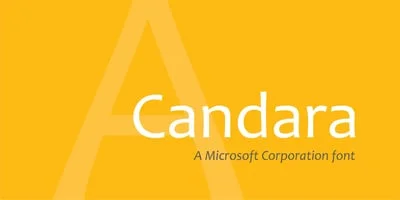
Candara Font
Candara Font is perfect for corporate presentations, business documentation, professional reports, educational materials, user interface design, modern signage systems, clean branding projects, and contemporary digital applications. This versatile humanist sans-serif typeface excels in projects requiring exceptional clarity and professional warmth where accessibility meets sophisticated design standards.
What makes Candara Font exciting is its perfect balance of humanist warmth with geometric precision, creating a typeface that feels both approachable and professionally authoritative across all communication contexts. The font features rounded letterforms with subtle organic curves and optimized proportions that enhance readability while conveying friendliness and reliability. Its balanced character makes it ideal for organizations seeking to communicate professionalism while maintaining human connection and accessibility.
Candara Font family includes comprehensive weight variations and extensive language support that provide exceptional flexibility for international business and educational applications. The family typically offers regular, bold, italic, and bold italic styles, along with optimized screen rendering and extensive character sets that ensure consistent performance across all platforms and devices.
Whether you're developing corporate identity systems, creating educational content, or designing user-friendly interfaces, Candara Font delivers outstanding versatility across all professional applications. This font's accessibility and contemporary appeal make it perfect for organizations prioritizing clear communication and inclusive design in today's diverse global marketplace.
The carefully optimized letterforms and excellent screen performance of Candara Font ensure exceptional readability while maintaining its distinctive humanist personality across all digital and print applications. Its professional reliability and warm character create positive user experiences that enhance communication effectiveness. Download Candara Font today and improve your professional communications with this expertly designed humanist typeface that perfectly balances clarity, warmth, and contemporary sophistication for superior business and educational applications.